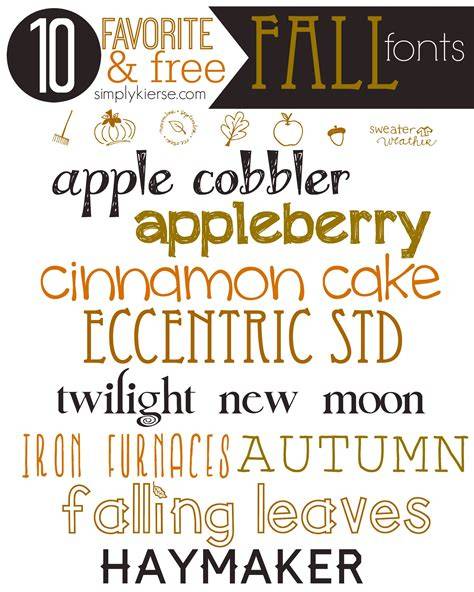
A Comprehensive Guide To Understanding Fonts Fall 2023
Introduction
Fonts fall is an exciting new trend in the world of design and graphic design. It has become increasingly popular as a way to make digital art and designs look more modern and professional. Fonts fall is a type of font style that is characterized by a combination of bold and light elements. This style of font is often used to create striking contrast between elements in a design or artwork. It is also often used to create a unique look and feel. Fonts fall is a great way to make any design stand out and be noticed.
Fonts Fall 2023: What is It?
Fonts fall 2023 is a trend that has been gaining popularity due to its modern and professional look. It is a type of font that is characterized by a combination of bold and light elements. This type of font can be used to create contrast between elements in a design or artwork. It also provides a unique look and feel that is difficult to replicate with other font styles. Fonts fall 2023 is a great way to make any design stand out and become noticed.
How to Incorporate Fonts Fall 2023 into Your Designs
Incorporating fonts fall 2023 into your designs is a great way to make them stand out and be noticed. There are several different ways to use this type of font in your designs. One of the most popular ways is to use a combination of bold and light elements. This type of font is also often used to create contrast between elements in a design. Additionally, it can be used to create a unique look and feel for a design.
Tips for Using Fonts Fall 2023
When using fonts fall 2023 in your designs, there are some tips that can help you make the most of this trend. First, it is important to choose the right font for your design. It is also important to make sure that the font is readable and easy to read. Additionally, it is important to consider the size and scale of the font when using this style. Finally, it is important to remember that fonts fall 2023 is a style of font, so it is important to ensure that the font is used in a way that complements the overall design.
Fonts fall 2023 is a great way to make any design stand out and be noticed. It is a type of font that is characterized by a combination of bold and light elements. This type of font can be used to create contrast between elements in a design or artwork. It also provides a unique look and feel that is difficult to replicate with other font styles. By following the tips outlined in this article, you can easily incorporate fonts fall 2023 into your designs and create stunning results.